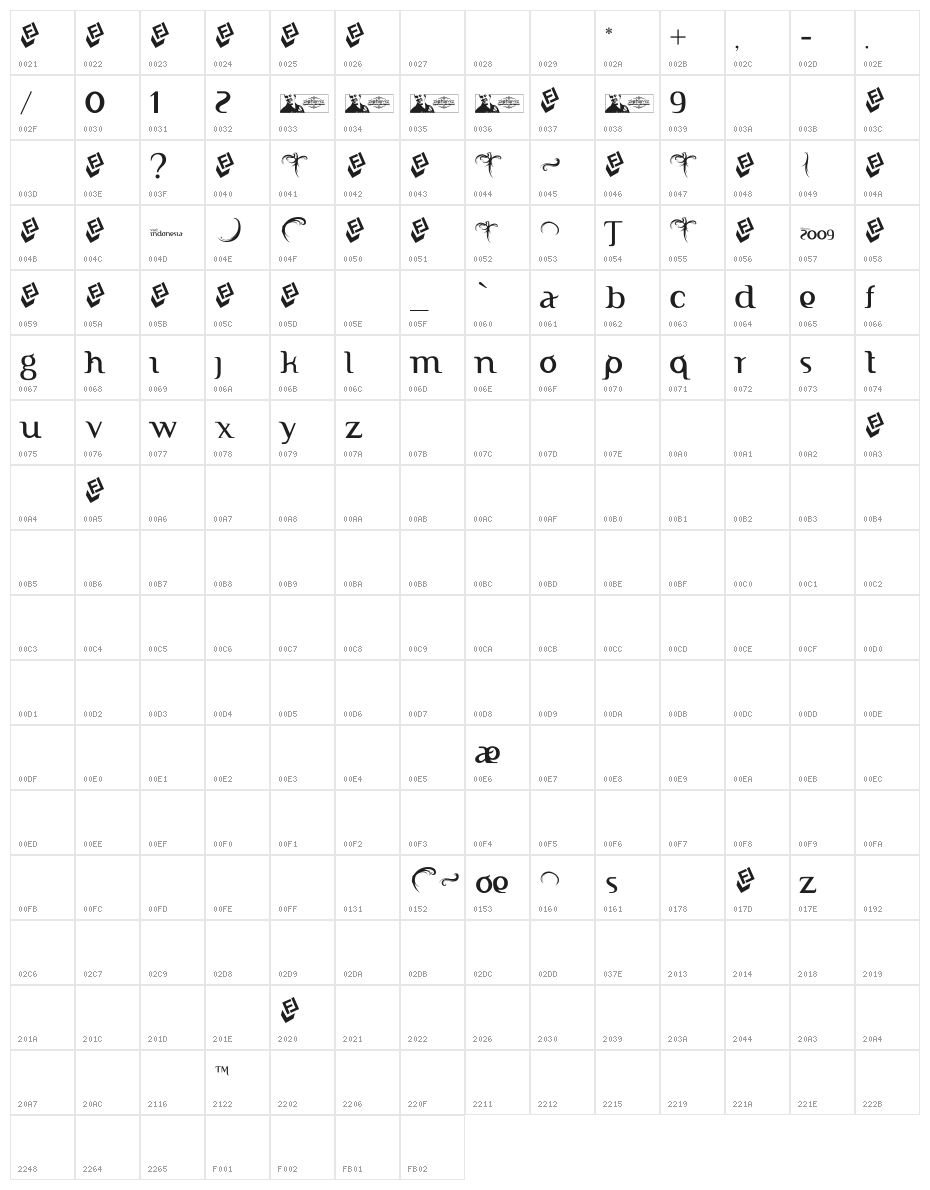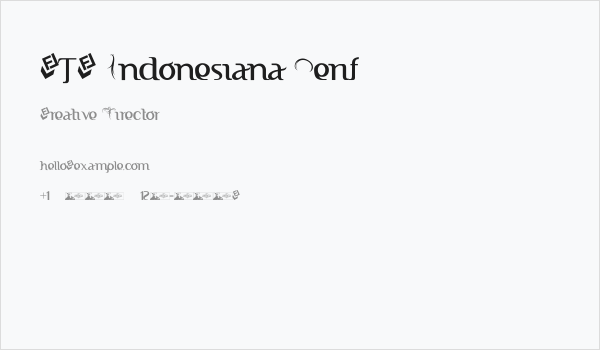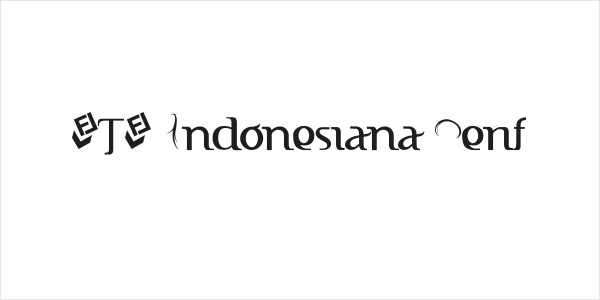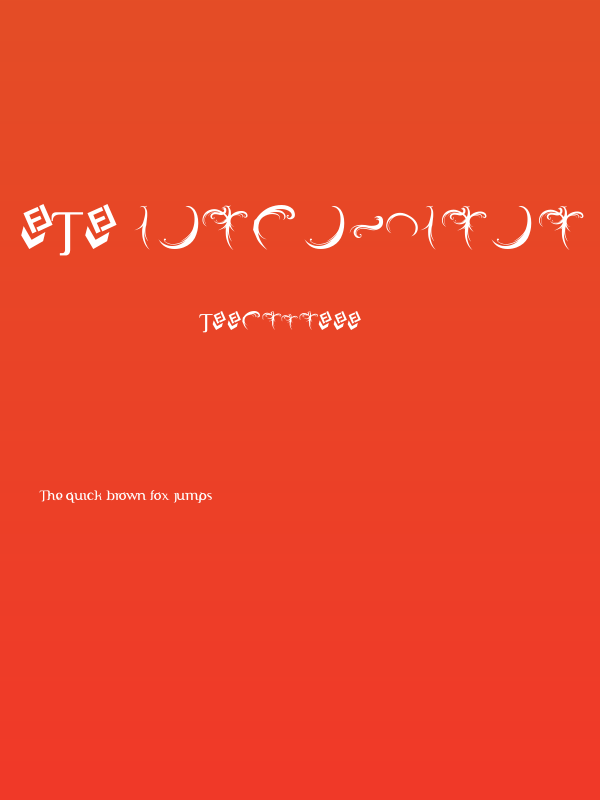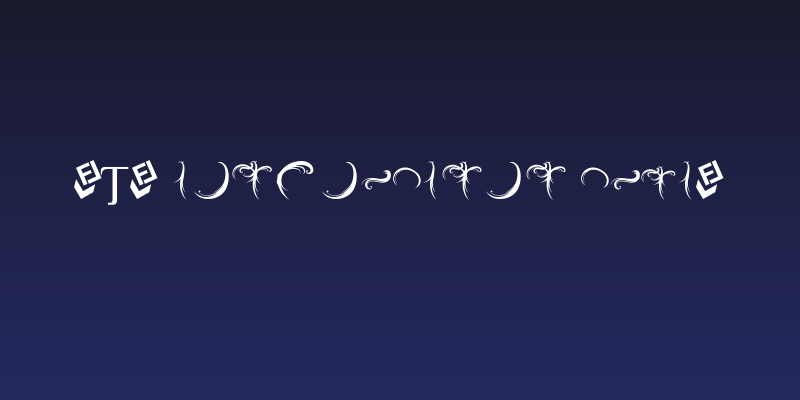
FTF Indonesiana Serif Font
FTF Indonesiana Serif Description
This font features a unique blend of traditional serif elements with a modern twist, characterized by its elegant and flowing curves. The uppercase letters exhibit a bold and decorative style, while the lowercase letters maintain a more classic serif appearance. The numerals are distinct and easy to read, complementing the overall design. The special characters add a touch of sophistication, making it suitable for creative and artistic projects. The font's intricate details and balanced proportions make it versatile for various design applications.
| Proposed Projects | Ideal for branding, invitations, posters, and artistic projects that require a touch of elegance and creativity. |